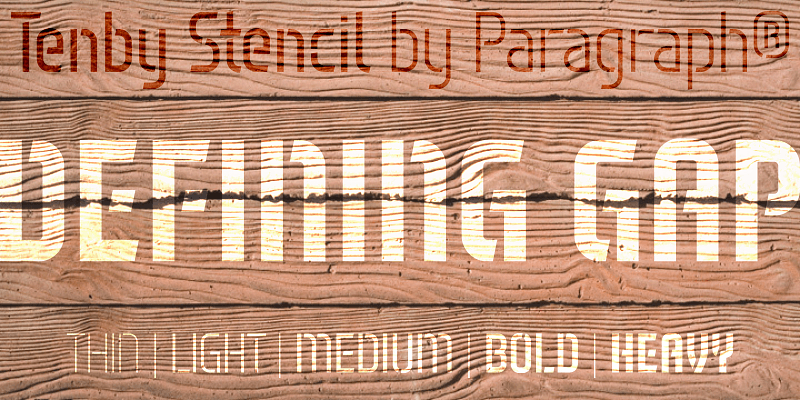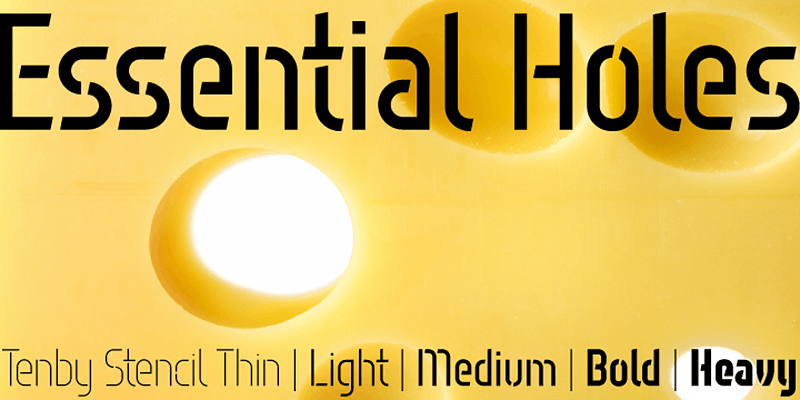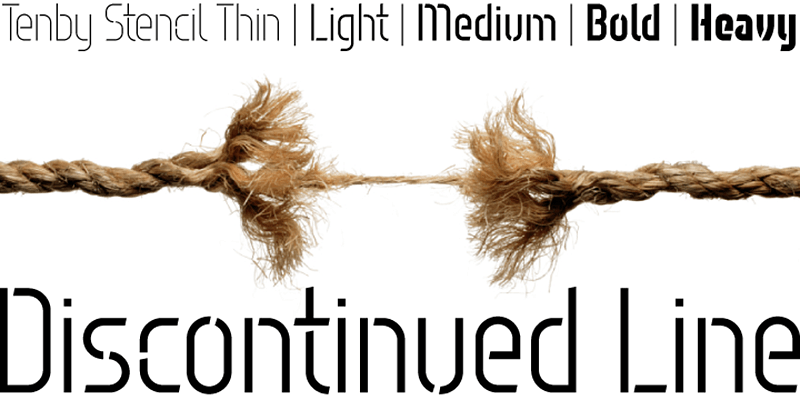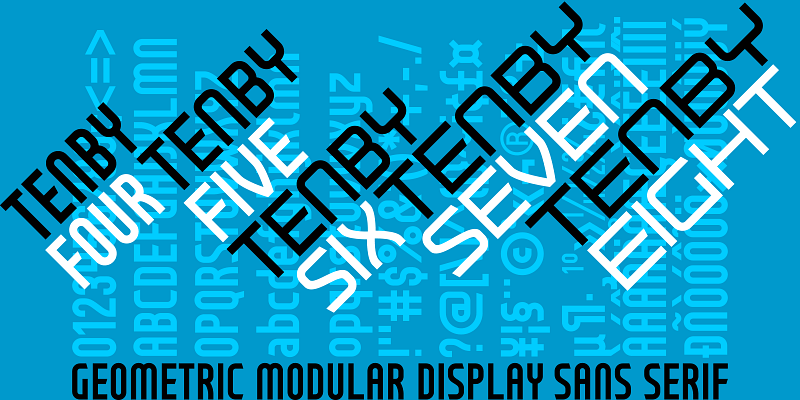
Tenby is a series of modular geometric display sans serif fonts with a hint of Art Deco combined with a 1980s finish. The fonts’ underlying grid is ten squares high. Their widths correspond to condensed (Tenby Four), normal (Tenby Five) semi-extended (Tenby Six), extended (Tenby Seven), and extra-extended (Tenby Eight). Each contains two weights, light and regular. Although smaller text sizes are still quite legible, the fonts work better at large sizes. Tenby Stencil’s gaps are purely decorative. They have a consistent size and angular similarity, giving headlines or logos a unique dramatic effect.